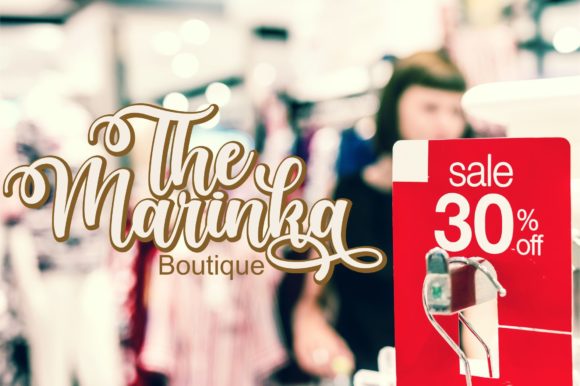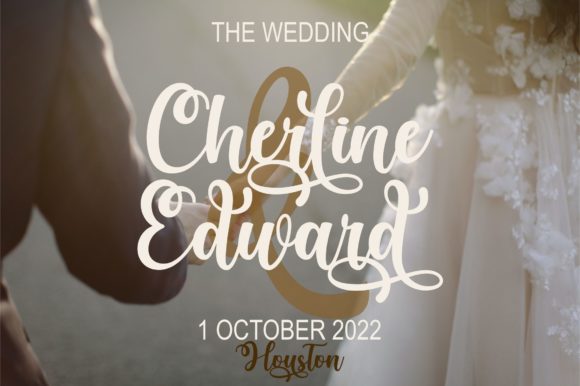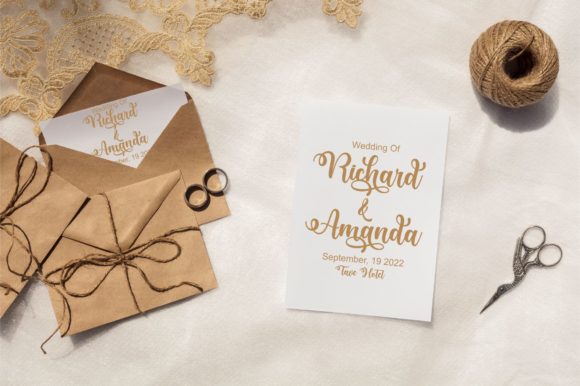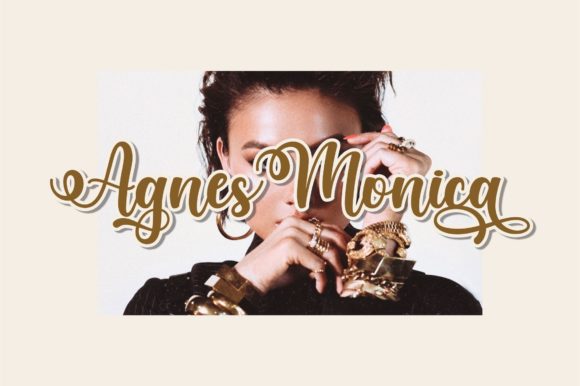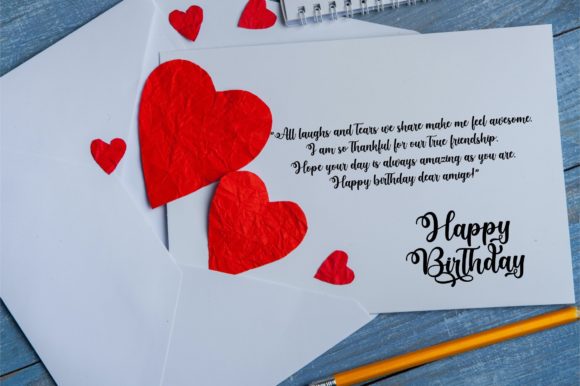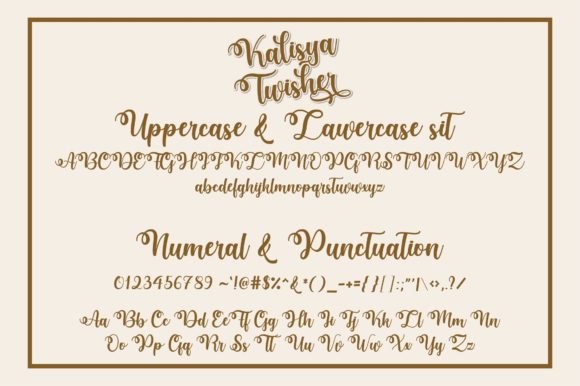
The Art of Elegant Typography
As a designer, you know that the perfect font can make all the difference in bringing your vision to life. There’s something special about creating a beautiful logo or invitation that captures the essence of a brand or event. For me, it’s the moment when the words and design come together in perfect harmony – it’s like magic.
That’s why I’m excited to introduce you to the stunning Kalisya Twisher Font, a beautiful script font designed to elevate your designs. This versatile font is perfect for logos, invitations, magazines, books, greeting cards, and more – really, any project that requires a touch of elegance and sophistication. With its PUA encoding, you can easily access all the glyphs and swashes, giving you endless creative possibilities. Whether you’re a seasoned designer or just starting out, the Kalisya Twisher Font is a valuable addition to your toolkit.
Kalisya Twisher Font Key Features
- Unique Characteristics: The font features a unique blend of traditional and modern elements, making it perfect for designs that require a touch of elegance and sophistication.
Kalisya Twisher Font Review
The Kalisya Twisher Font is an interesting and eclectic font that is sure to grab attention. It’s a great choice for designers looking to add a bit of whimsy and personality to their projects.
- The font has a unique and playful feel that can add a lot of character to text-based designs.
- The many swashes and flourishes add a touch of elegance and sophistication.
- The font is highly customizable, with many options for adjusting the style and layout.
- The font can be overwhelming and difficult to read at small sizes.
- The many flourishes and swashes can make the font feel cluttered and busy.
- The font is not suitable for use in situations where a clear and concise message is necessary.
Overall, I would give the Kalisya Twisher Font 3.5 out of 5 stars. It’s a great choice for designers looking to add a bit of personality to their projects, but it may not be the best choice for every situation. With a bit of caution and planning, it can be a great addition to any design portfolio.
Kalisya Twisher Font: A Practical Application Guide
Tips for Getting the Most Out of Kalisya Twisher Font
For optimal results, use the Kalisya Twisher Font in conjunction with high-contrast backgrounds and bold, eye-catching designs. Experiment with font sizes, colors, and styles to create a unique look.
Common Use Cases for Kalisya Twisher Font
The Kalisya Twisher Font is ideal for creating bold, attention-grabbing headlines, titles, and slogans. Use it in branding, advertising, and promotional materials to make a lasting impression.
Alternatives to Kalisya Twisher Font
The Great Vibes Font is a beautiful, handwritten script font that is perfect for creating a relaxed and casual atmosphere. It is ideal for use in designs that require a friendly, approachable tone, such as wedding invitations, greeting cards, and social media graphics.
Comparison to Kalisya Twisher Font: While both fonts have a handwritten feel, Great Vibes Font is more casual and laid-back, whereas Kalisya Twisher Font has a more elegant and sophisticated touch.
The Carolyna Pro Font is a modern, elegant script font that is perfect for creating a sophisticated and refined atmosphere. It is ideal for use in designs that require a touch of luxury, such as branding, packaging, and high-end marketing materials.